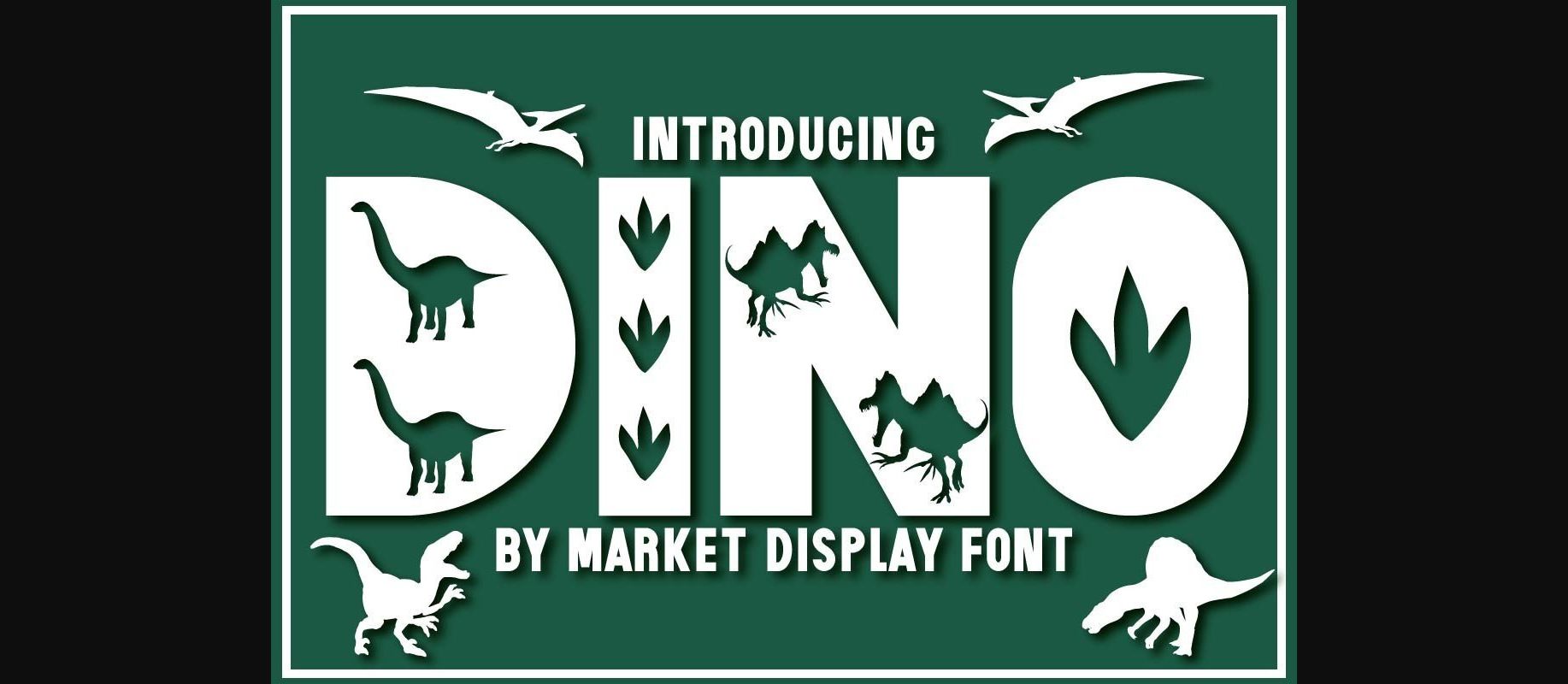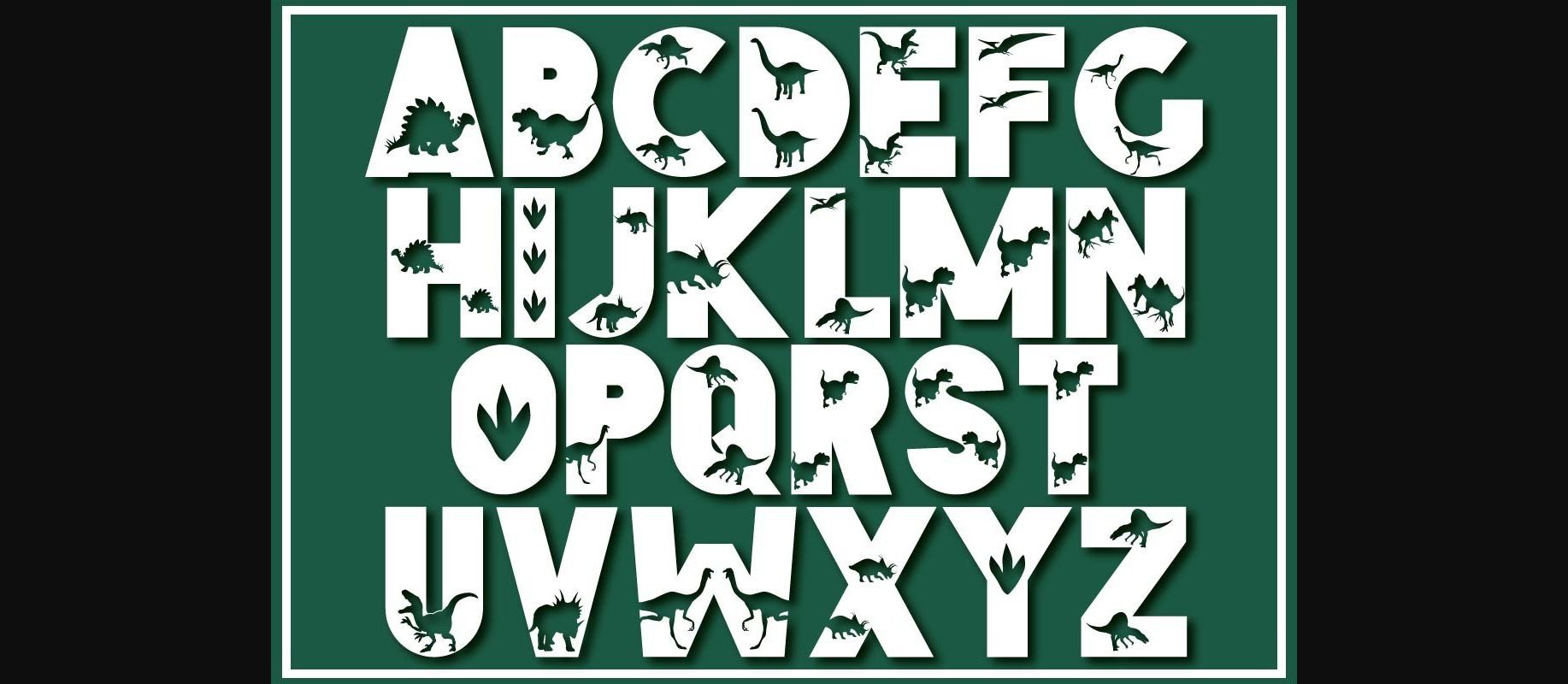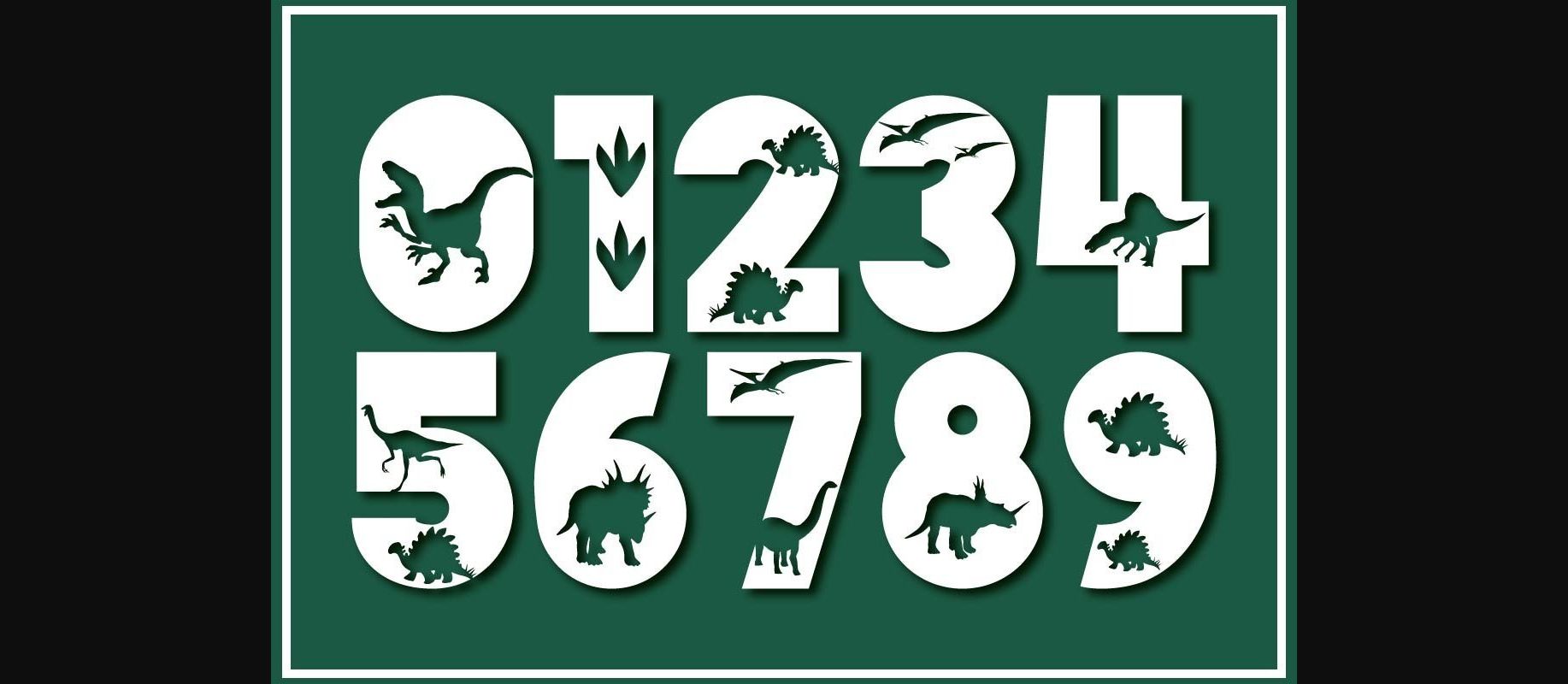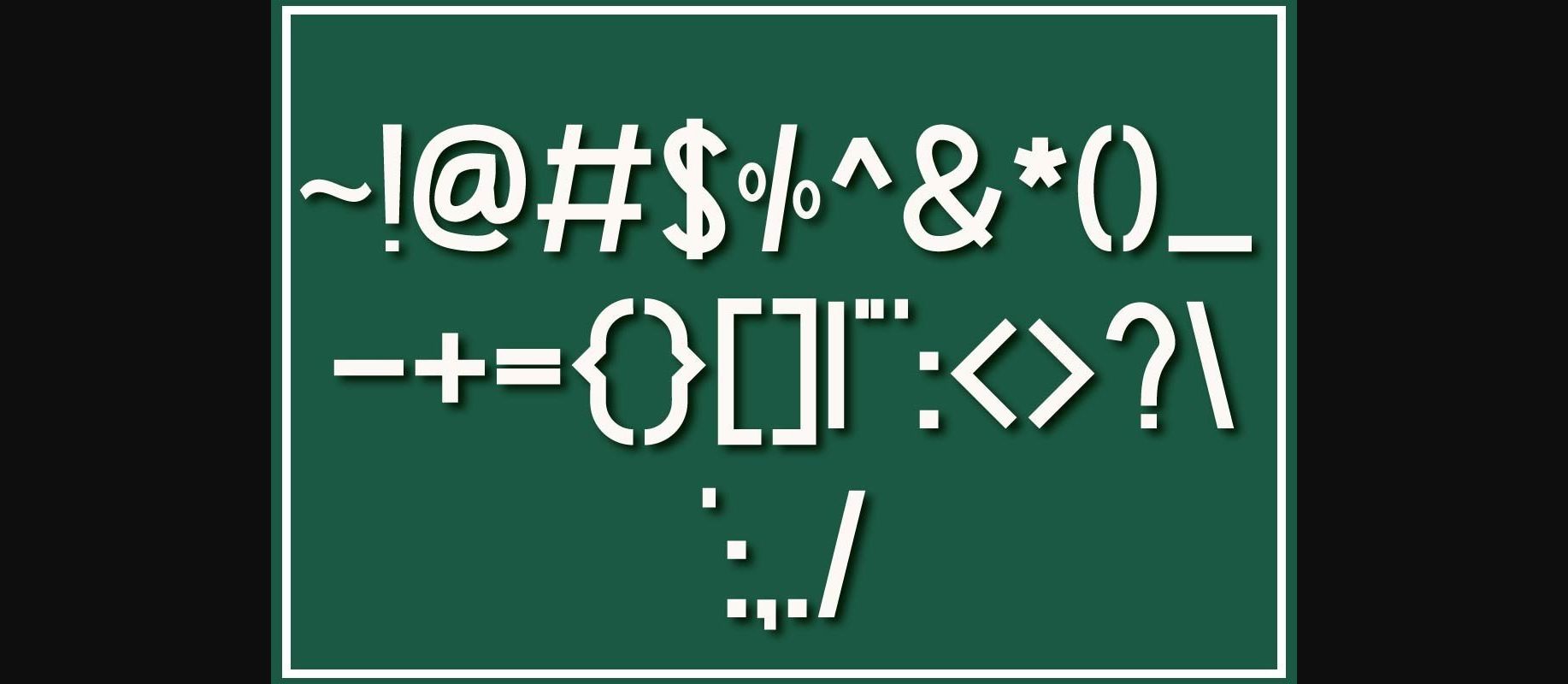
Dino is a fun and chunky lettered decorative font, featuring lovely dinosaurs as ornaments. This original look will appeal to a wide range of crafty ideas, from letterheads and titles to stationery.